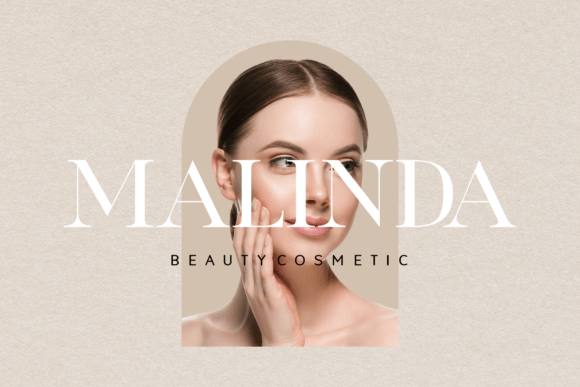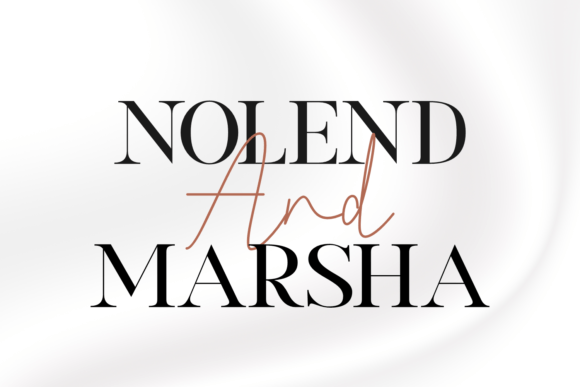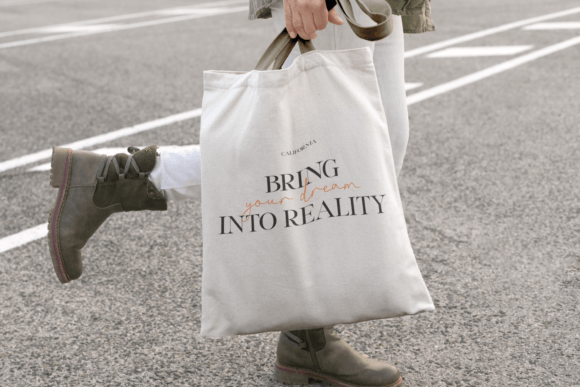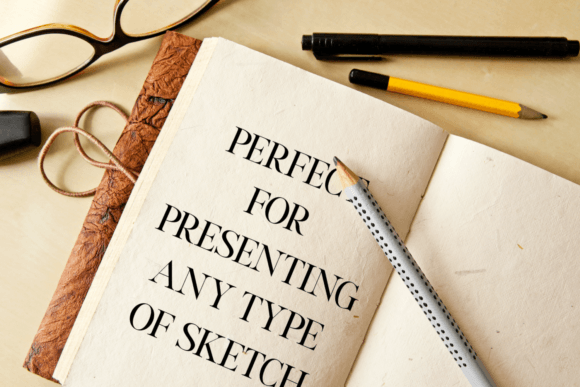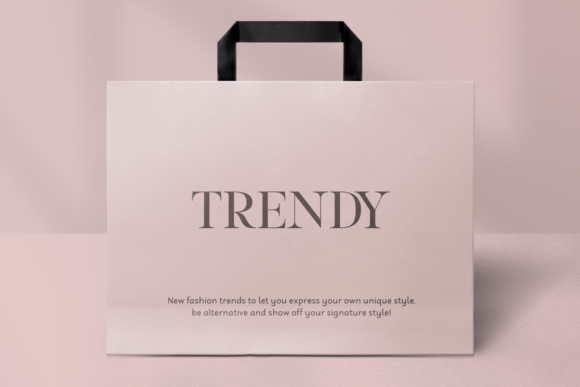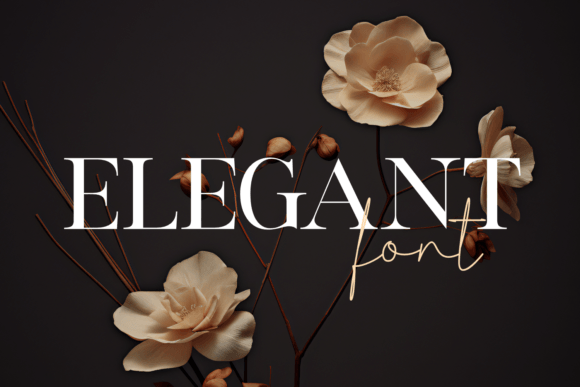
Introduction to Inland Village Font
Inland Village is a modern serif font with a classy style.
It looks amazing on any screen size and is easy to read in text size This font is created primarily for headlines, titles, and other short text and is perfect for advertising, vintage mood boards, branding, logotypes, packaging, titles, editorial designs, and modern and vintage designs.
Key Features of Inland Village Font